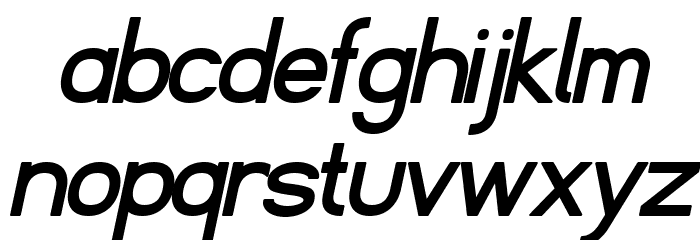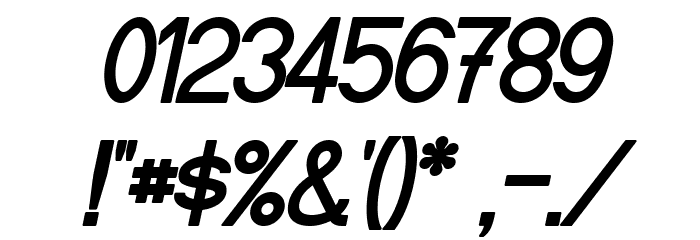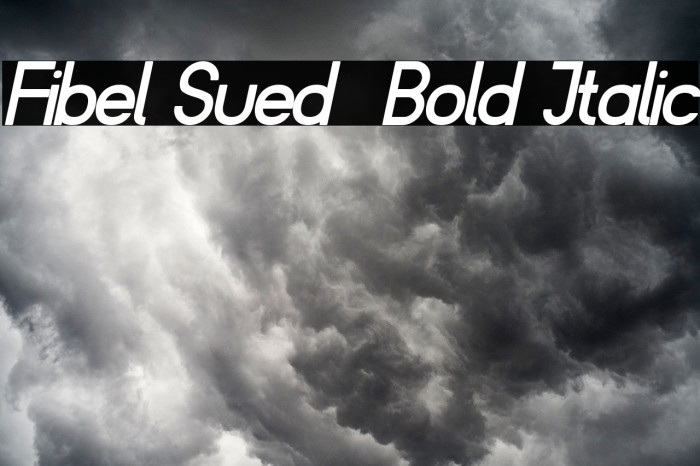
Fibel Sued Bold Italic Font
This font features a bold and italicized style with a modern and dynamic appearance. The characters are slightly slanted, giving a sense of motion and energy. The strokes are thick, providing a strong visual impact, while the overall design maintains a clean and professional look. The uppercase and lowercase letters are well-proportioned, and the numerals are clear and easy to read. Special characters are included, enhancing its versatility for various applications. The font's boldness and italicization make it suitable for attention-grabbing headlines and titles.
- Proposed Projects: Ideal for branding, advertising, posters, and headlines that require a strong and modern look.